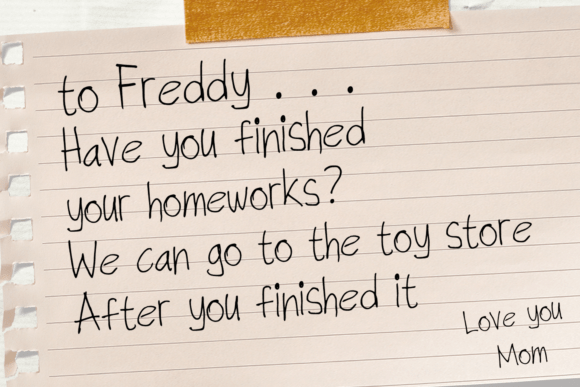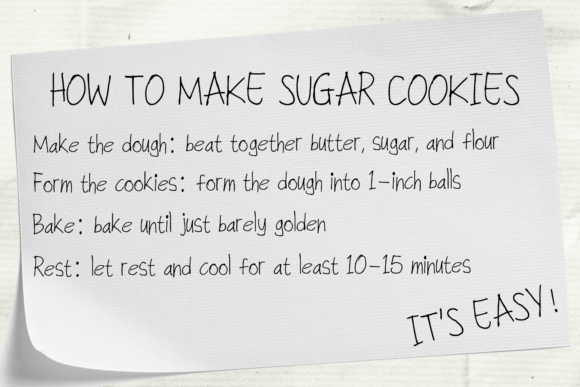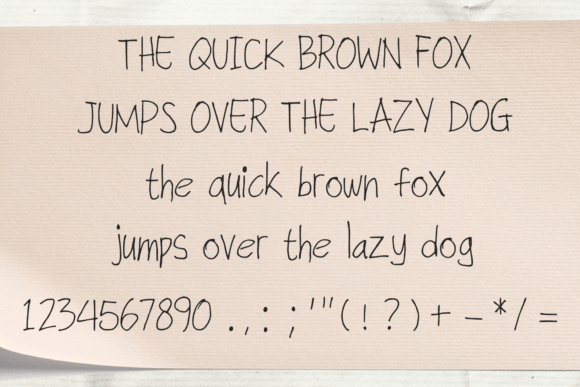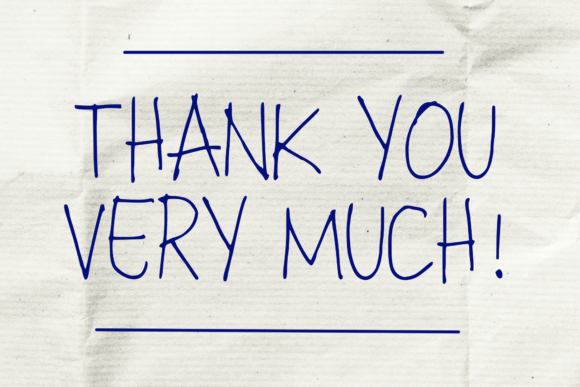
The Perfect Pen Pal for Your Designs
Have you ever been brainstorming ideas for a new project and suddenly, the perfect font pops into your mind? That’s exactly what happened when I first discovered the Casual Handlettered Font. It was one of those eureka moments that made me excited to dive into my next design venture.
This beautiful font is designed to add a touch of playfulness and elegance to any project. With its slender profile and fluid lines, the Casual Handlettered Font is perfect for crafting stickers, designing tees, creating logos, and sketching cartoons or comics. Its versatility makes it a valuable addition to any designer’s toolkit, and the final touch it brings to your creations is truly unbeatable.
Whether you’re a seasoned designer or just starting out, the Casual Handlettered Font is a must-have for anyone looking to create unforgettable designs. Its unique charm and effortless style make it the perfect companion for your creative endeavors.
Casual Handlettered Font Key Features
- Unique Characteristics: Hand-drawn and distressed textures for a casual, relaxed feel
Casual Handlettered Font Review
Overall, I’d say the Casual Handlettered Font is a solid choice for projects that need a relaxed, friendly vibe. ✨ The font’s irregularities and imperfections give it a unique, handmade feel that’s perfect for watermarks, quotes, or any text that needs a personal touch.
The font’s range of styles and weights is also a major plus. ✨ You can easily switch between bold and light styles to suit your design needs, and the subtle variations in letterform shape and size add depth and visual interest to your text.
While the Casual Handlettered Font is a great choice for many projects, it’s not without its limitations. ⚠️ Here are a few things to consider:
- Readability can be a challenge, especially at smaller font sizes or in dense text.
- The font may not be the best choice for projects that require a lot of precise typography or technical accuracy.
- The font’s irregularities can sometimes make it difficult to read or recognize certain letters.
Overall, I’d say the Casual Handlettered Font is a great choice for designers who want to add a touch of personality and whimsy to their projects. While it may not be the best choice for every project, it’s a versatile and stylish font that’s sure to add some visual interest to your designs.
Use Casual Handlettered Font for titles, headings, and short paragraphs to add a touch of elegance and sophistication to your designs.
Casual Handlettered Font is perfect for:
Birthday and party invitations
Stationery and letterheads